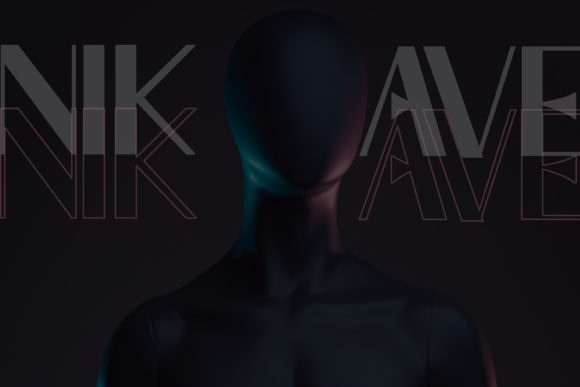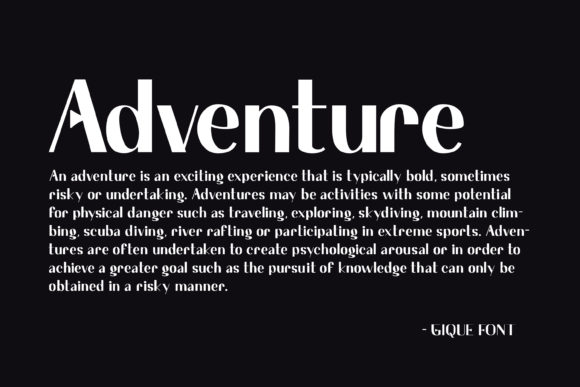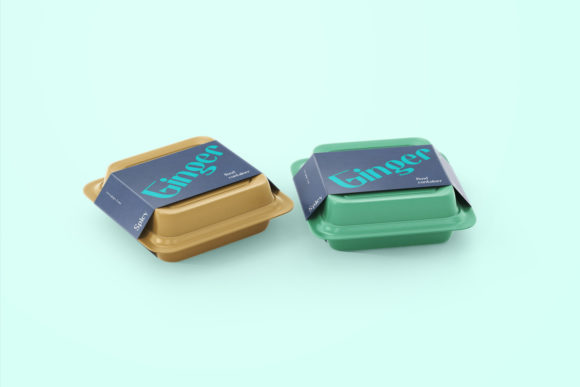
Introduction to Gique Font
Gique is a splendid display font that looks futuristic, stylish, and modern.
It has bold characters and a cool solemn vibe that can elevate the look of any creation .